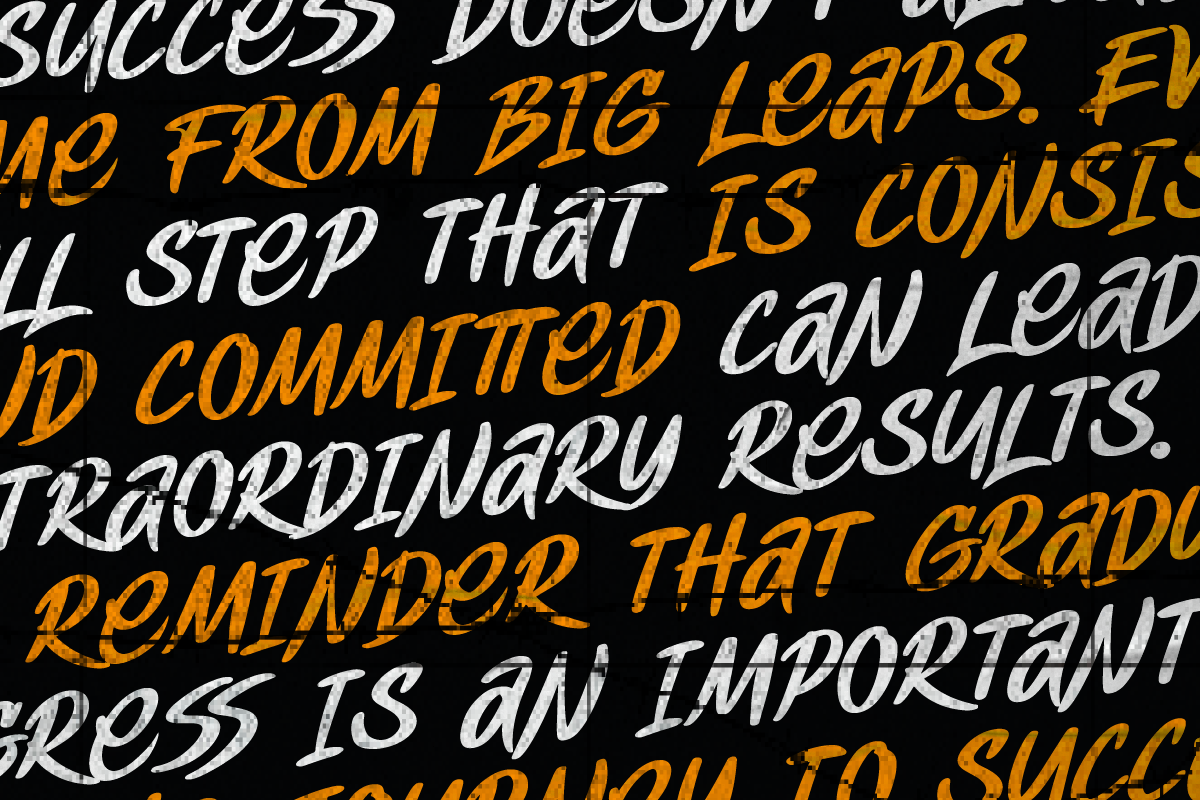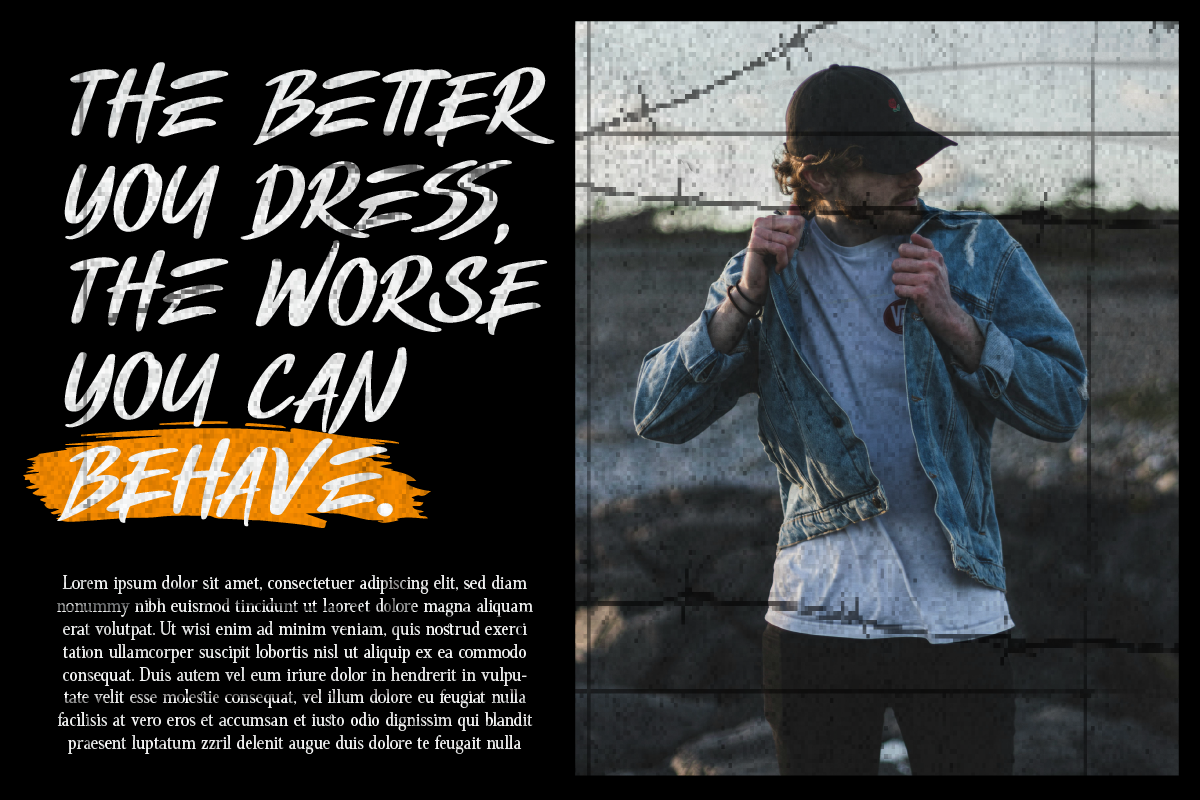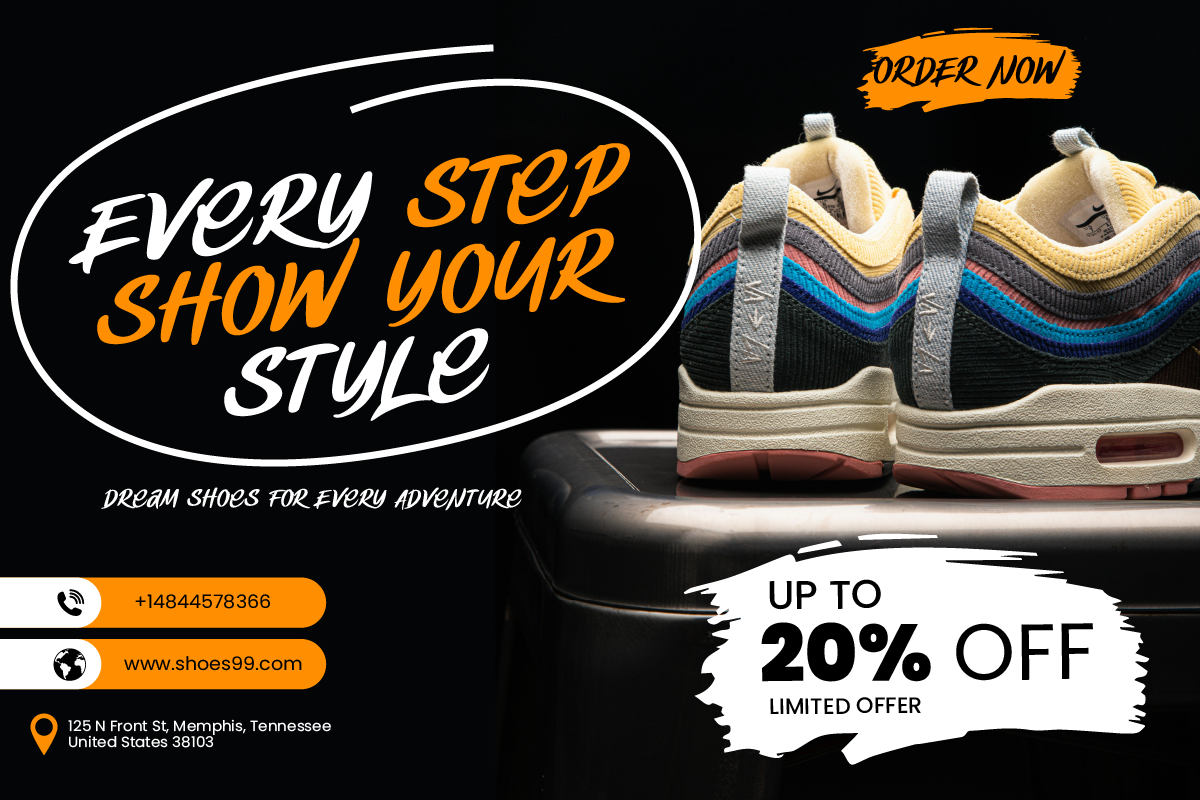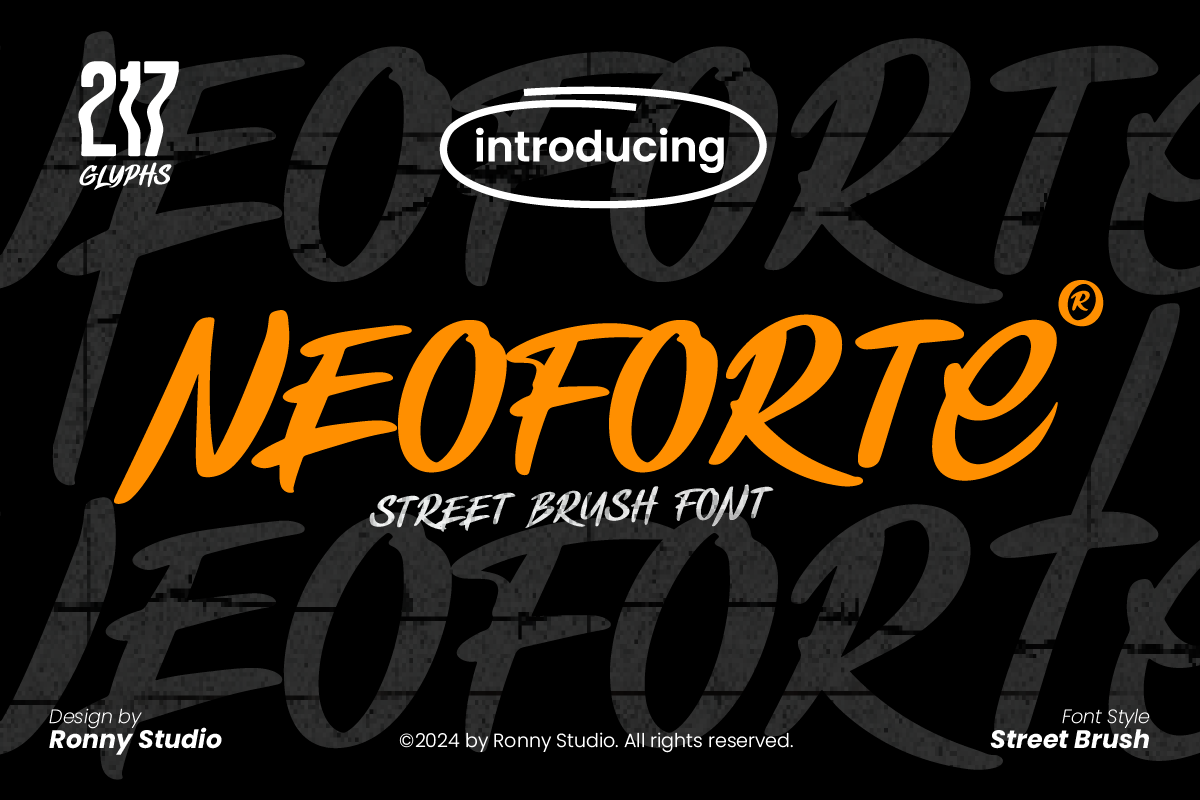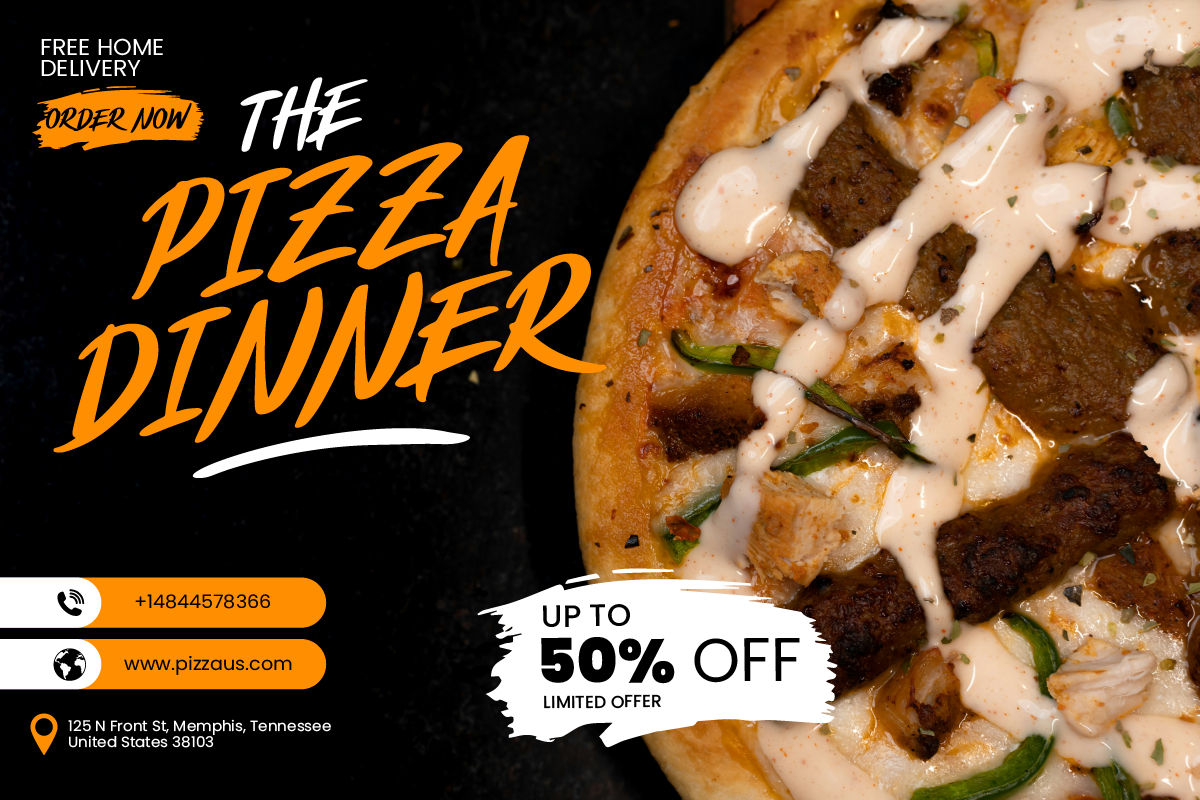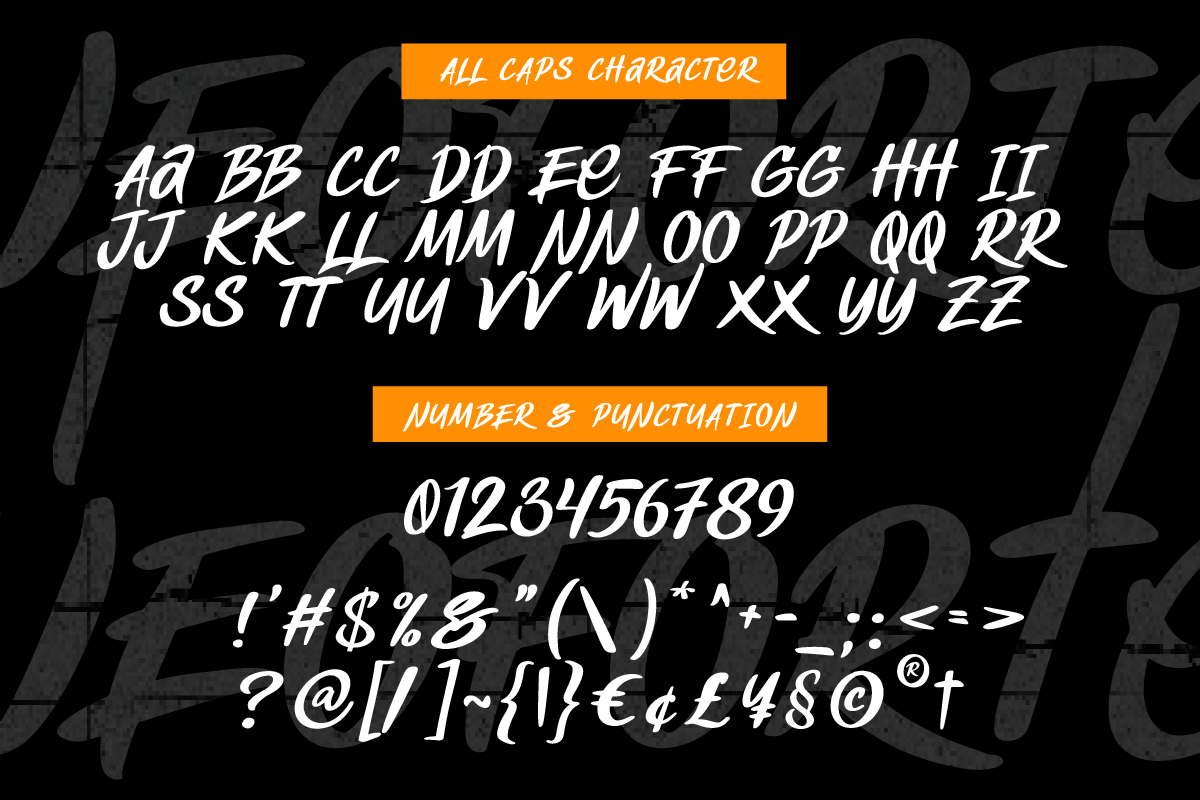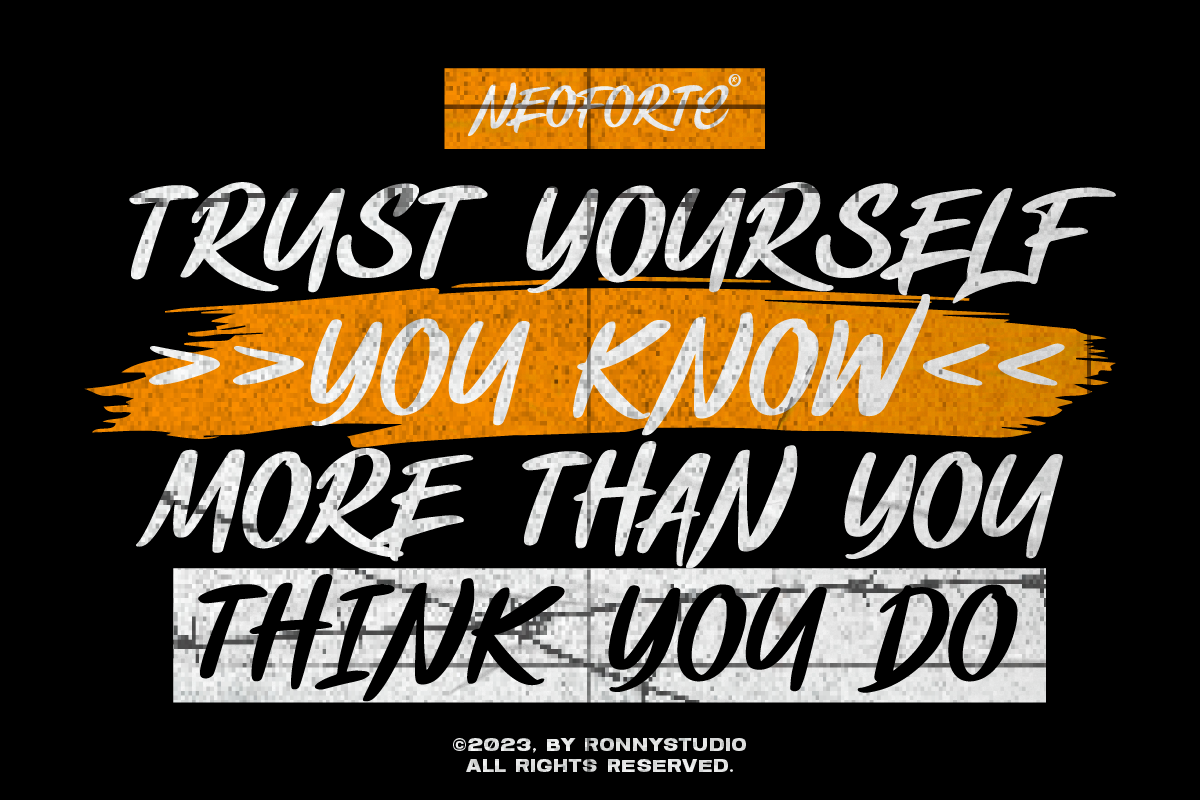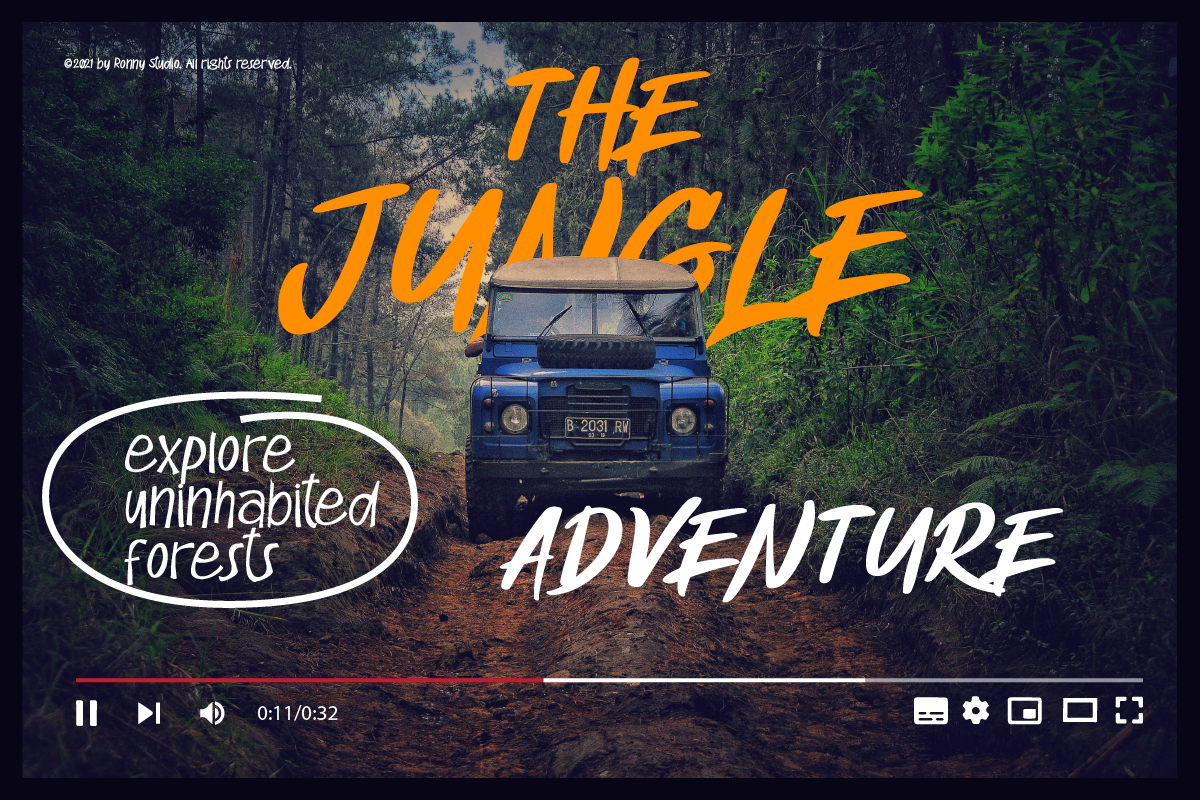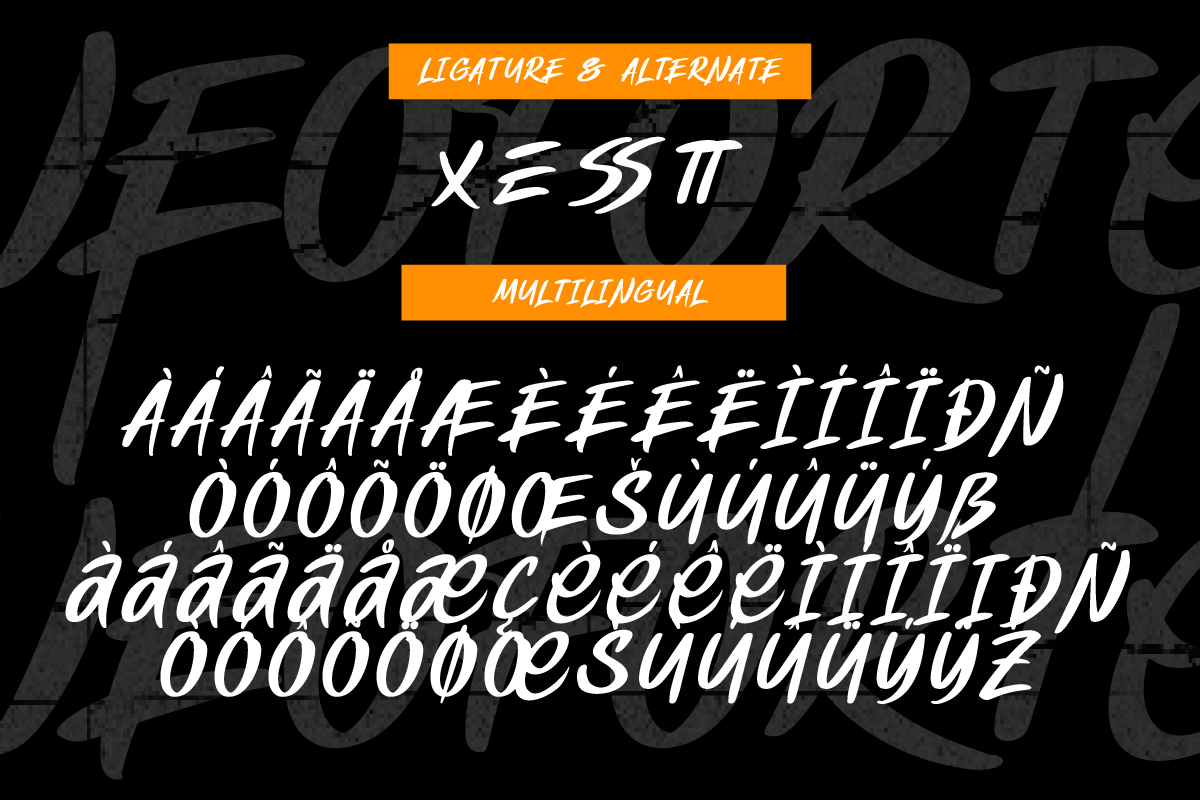
Introducing Neoforte by Ronny Studio. This bold, dynamic street brush font with 217 glyphs is perfect for adding a raw, hand-painted look to your designs. Ideal for branding, posters, social media graphics, and merchandise.